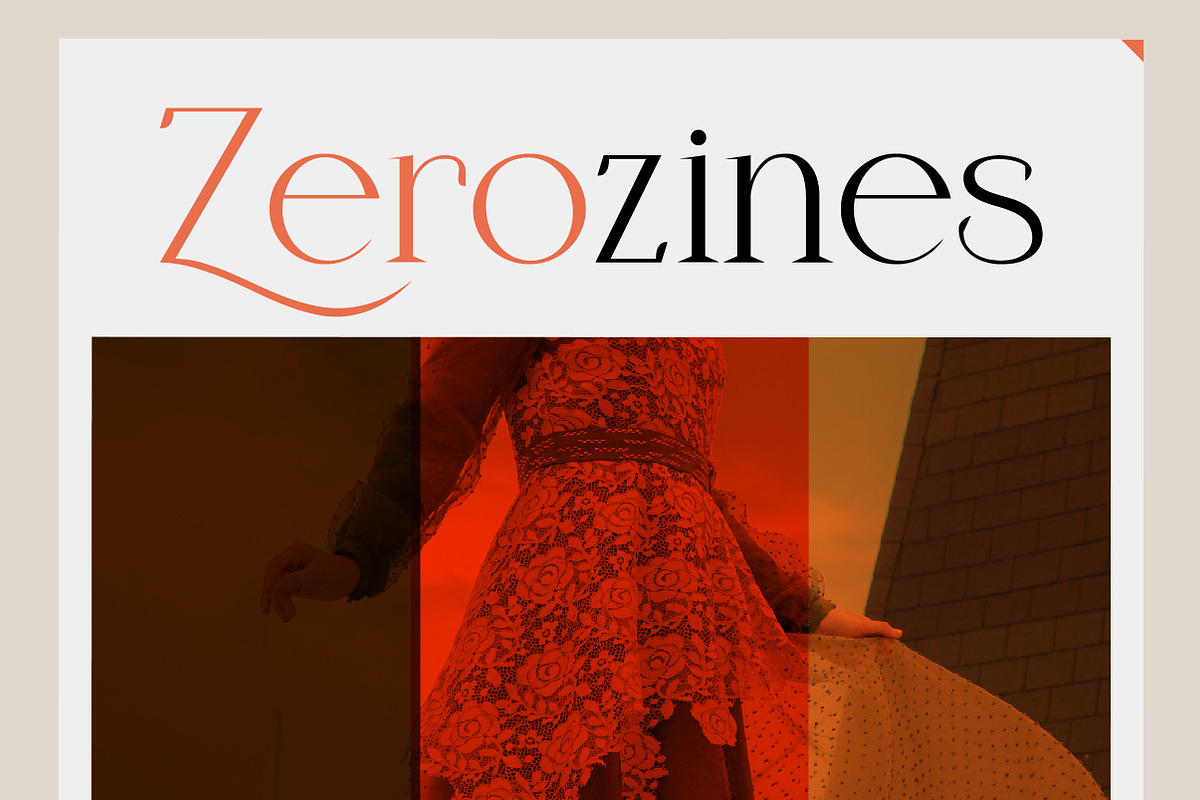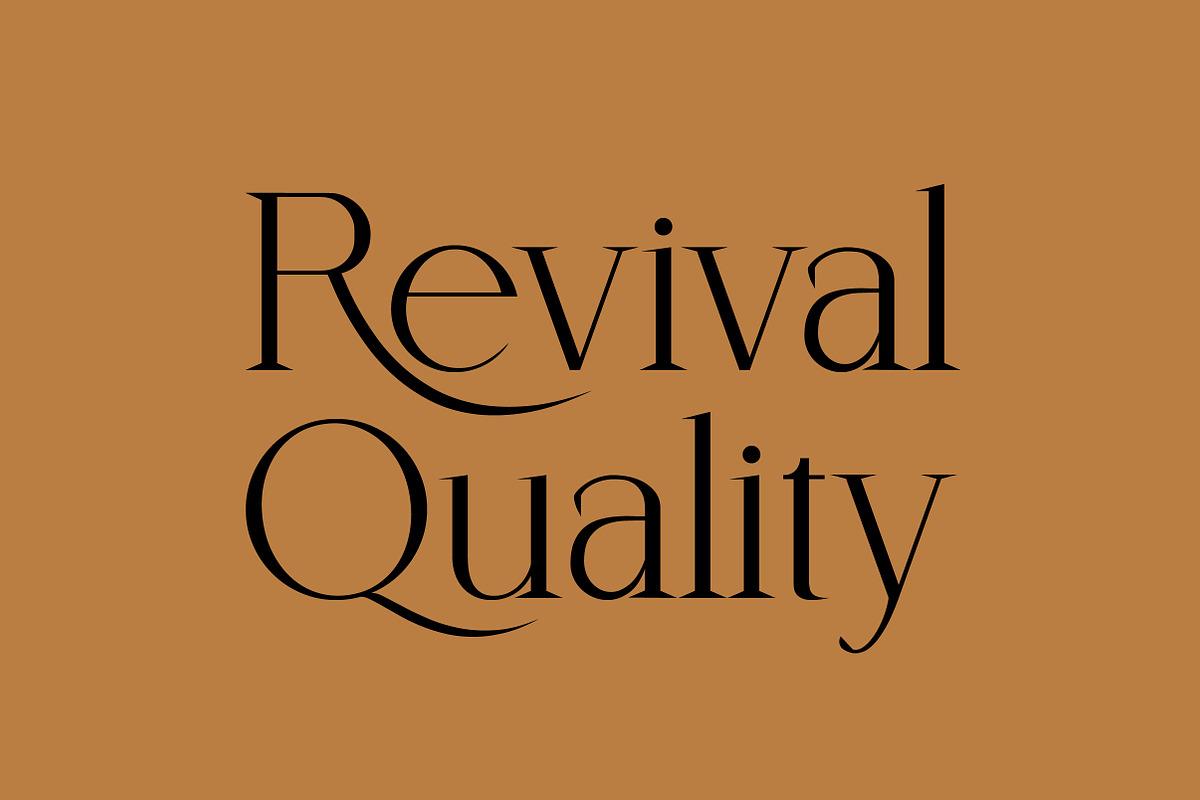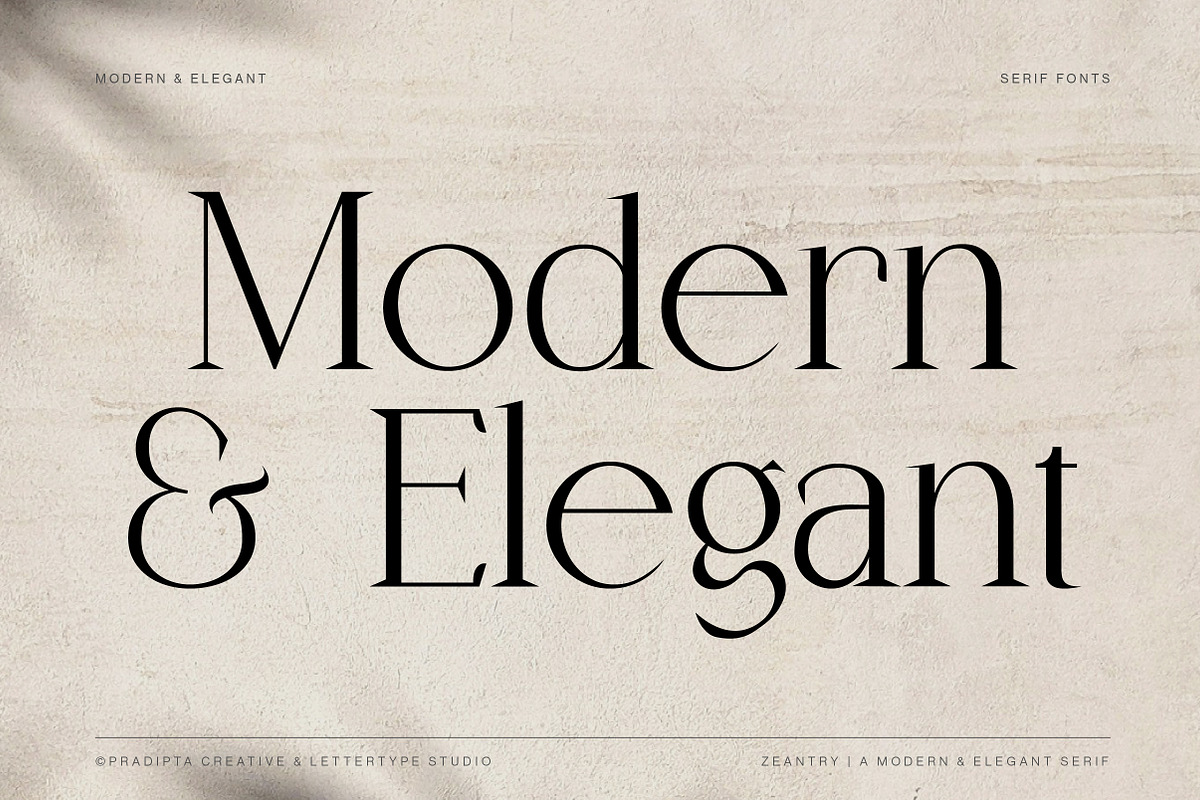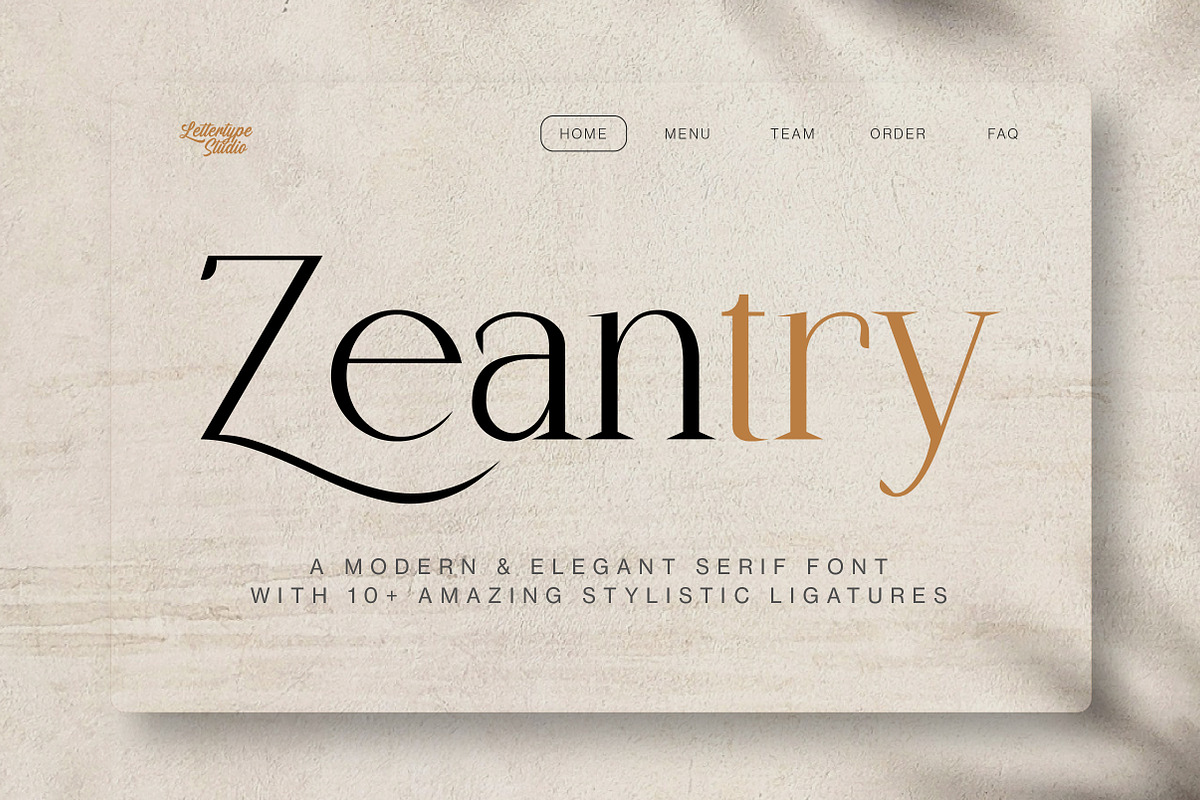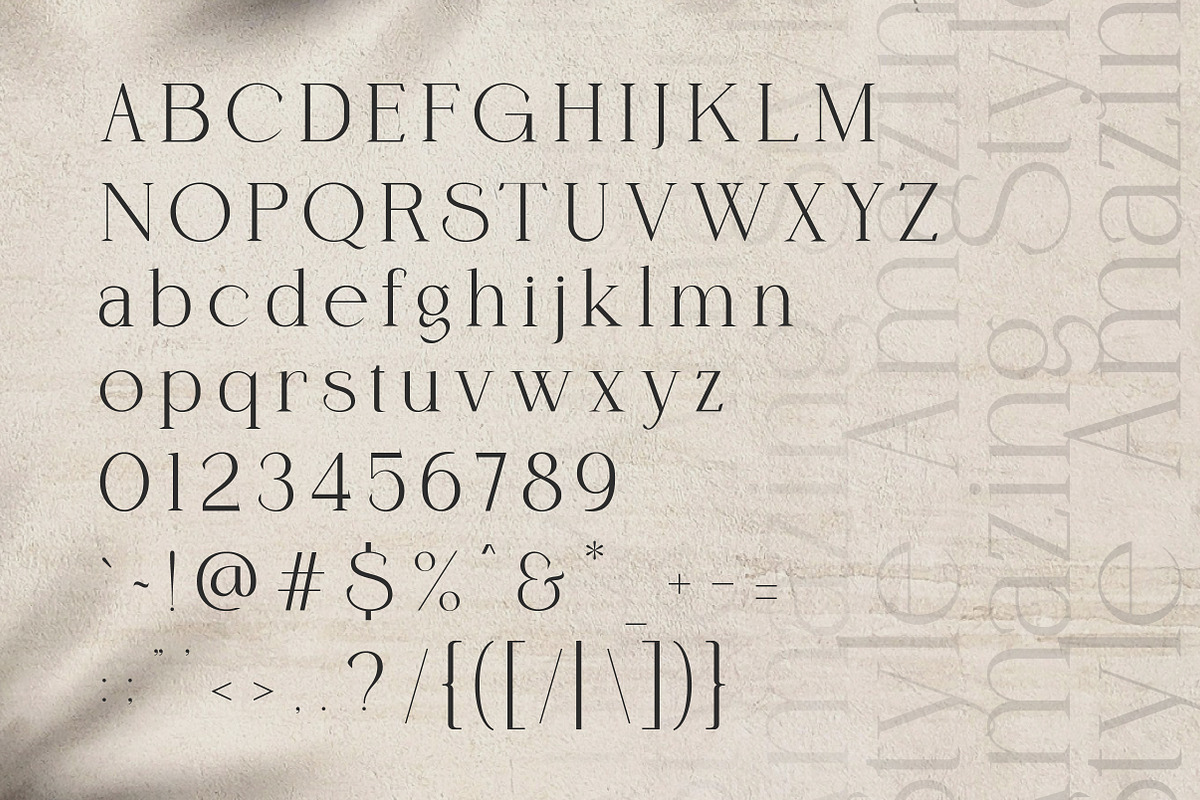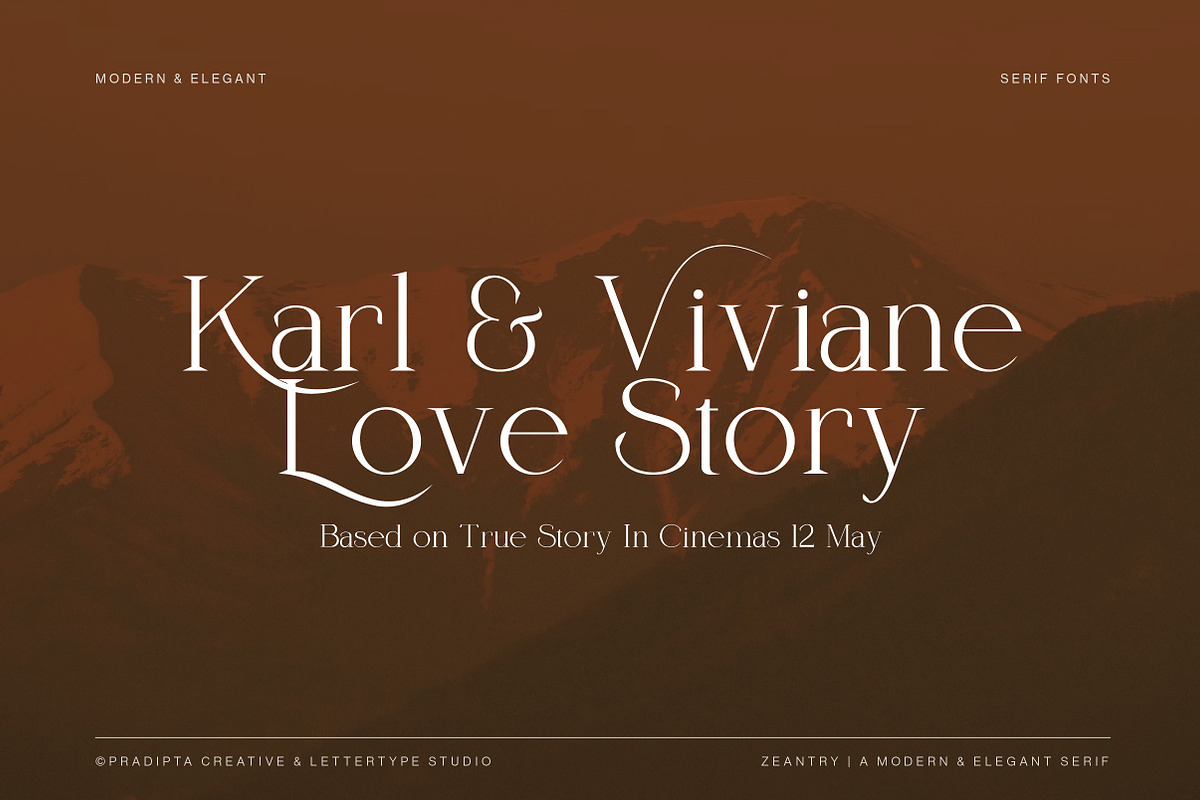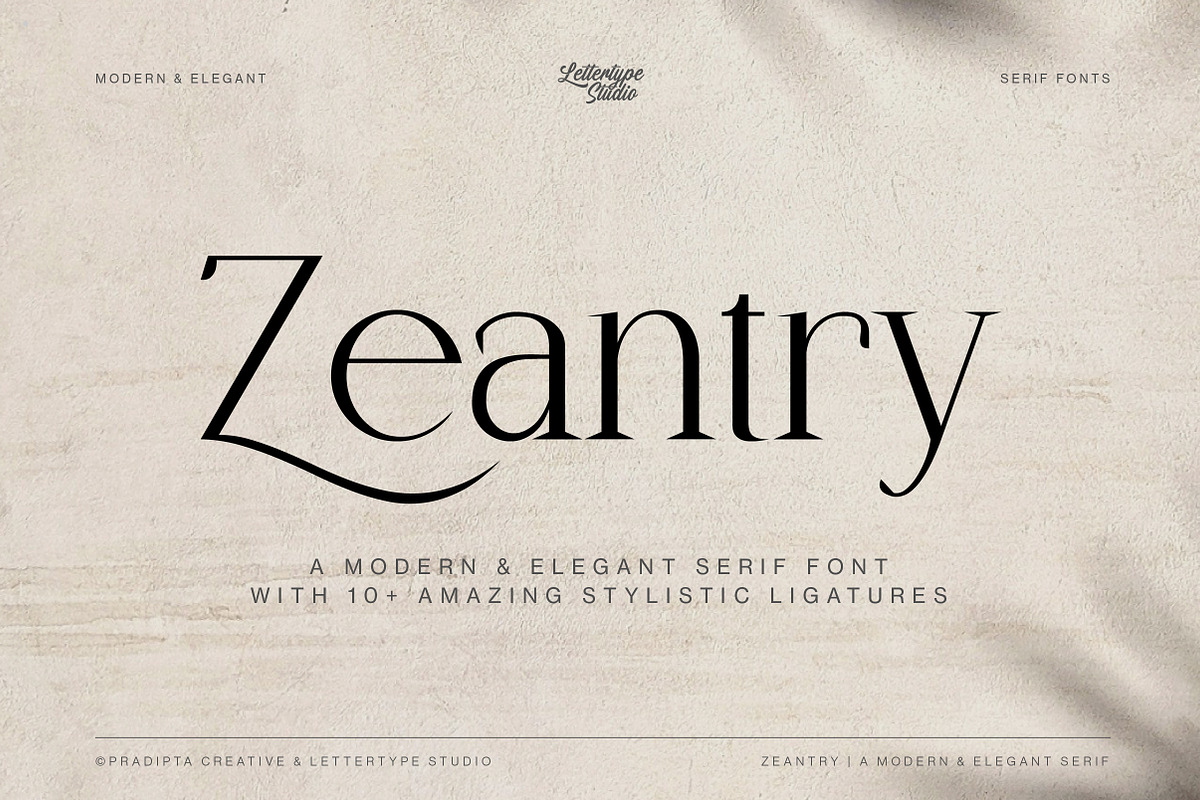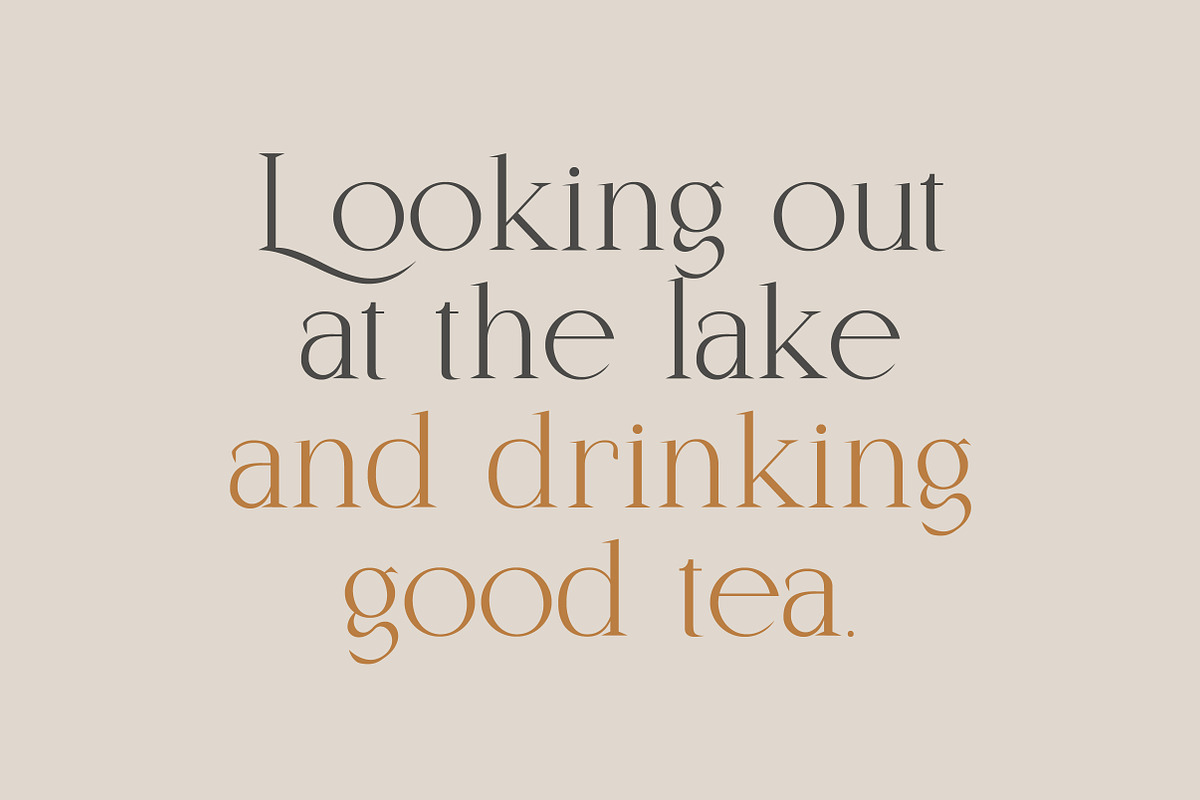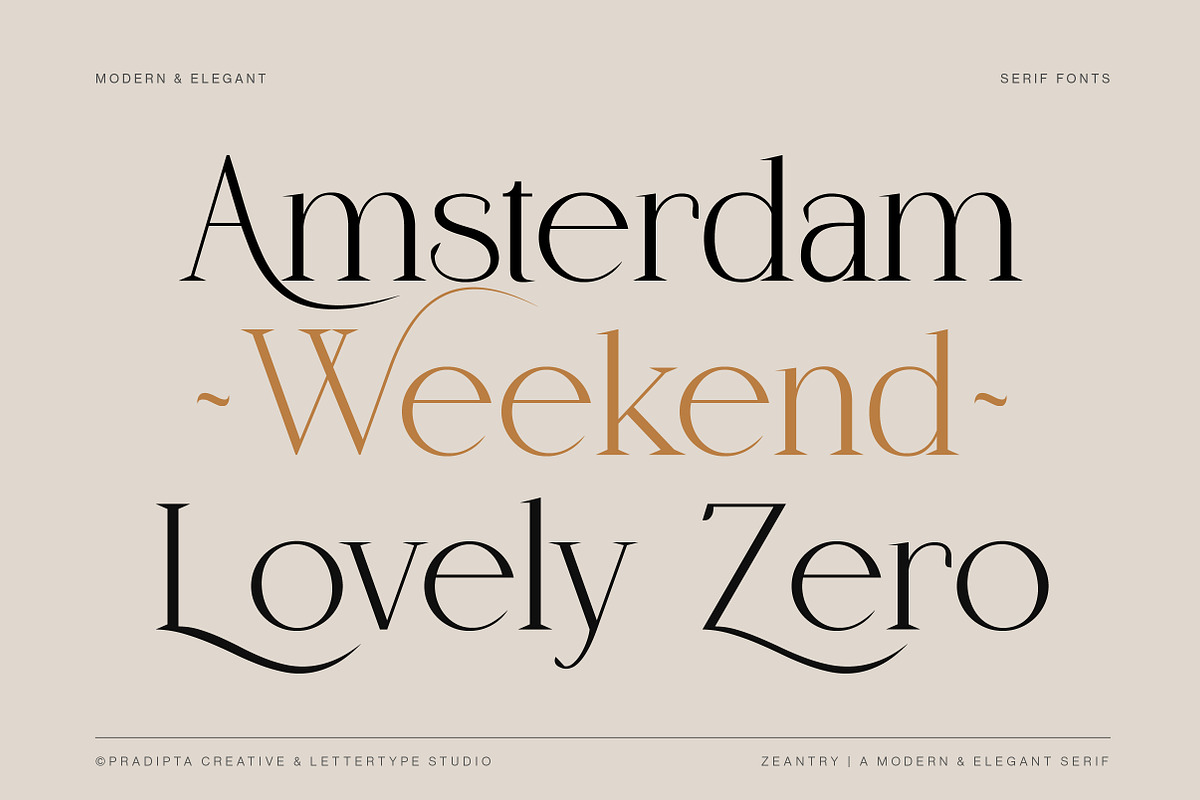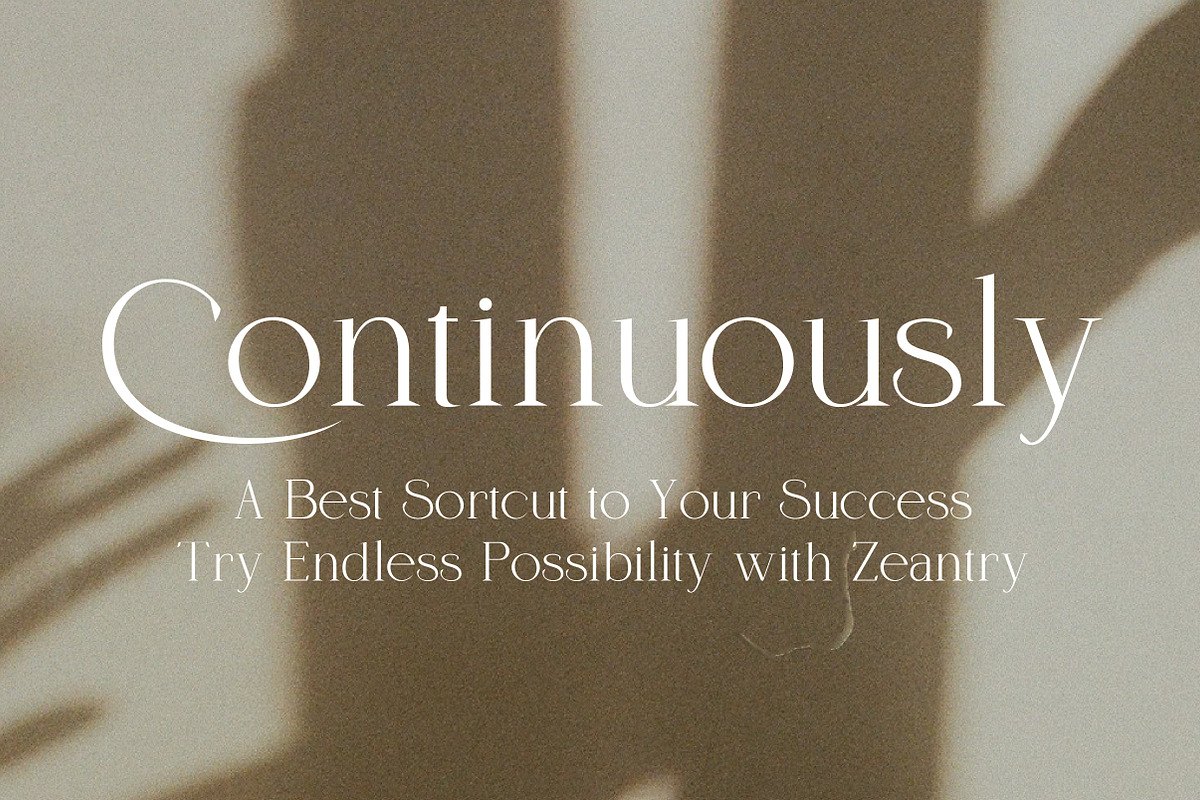
Zeantry a Modern & Elegant Serif
Zeantry is a modern and elegant chic serif font with a classic style inspired by 18th-century typography. Perfect for sophisticated branding, editorial design, web typography, and more. These fonts offer timeless appeal with clean lines, geometric and luxurious details, ensuring your projects stand out with elegance and style. Ideal for designers seeking versatility and refinement in their typography choices.
Zeantry font family offering multiple styles and multilingual support, elevates your digital and print creations with a unique modern and vintage flair. This font works in large and small sizes and includes 18 styles normal & italic. Featuring 10+ unique stylistic ligatures, multilingual support, and various weights.
Zeantry Features:
- Lowercase & Uppercase
- Alternates & Ligature
- Luxury branding, packaging, and elegant logo design
- Editorial layouts, magazines & wedding stationery
- Beauty, fashion, and jewelry campaigns
- Modern websites & high-end product identities
- Timeless typography for print & digital projects